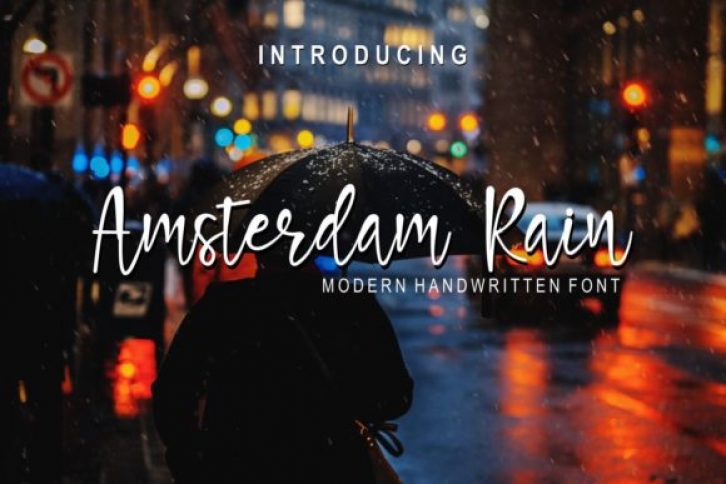
Amsterdam Rain is an amazing handwritten font. It looks attractive and natural! It has cute alternates and swashes and it will take your projects to the next level!